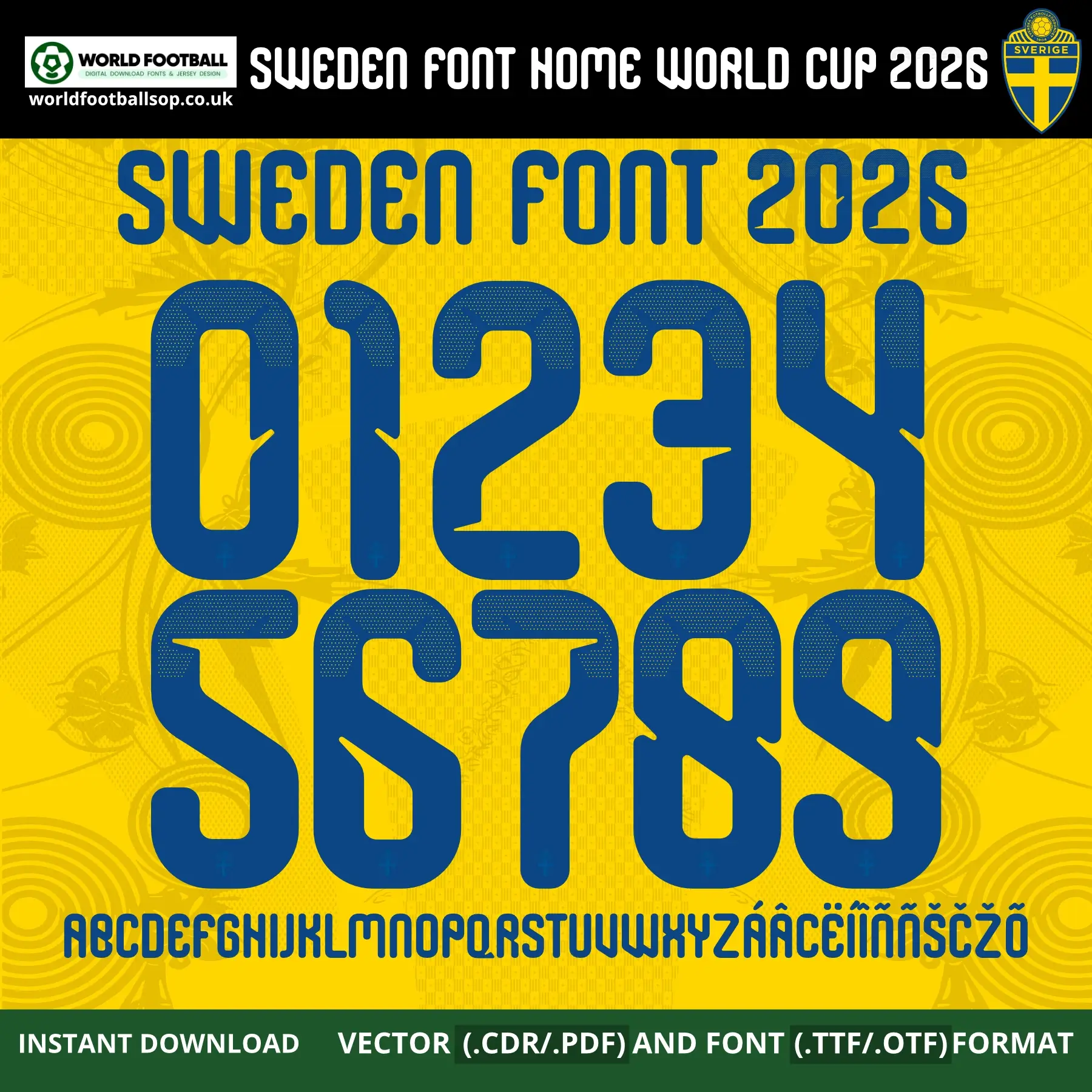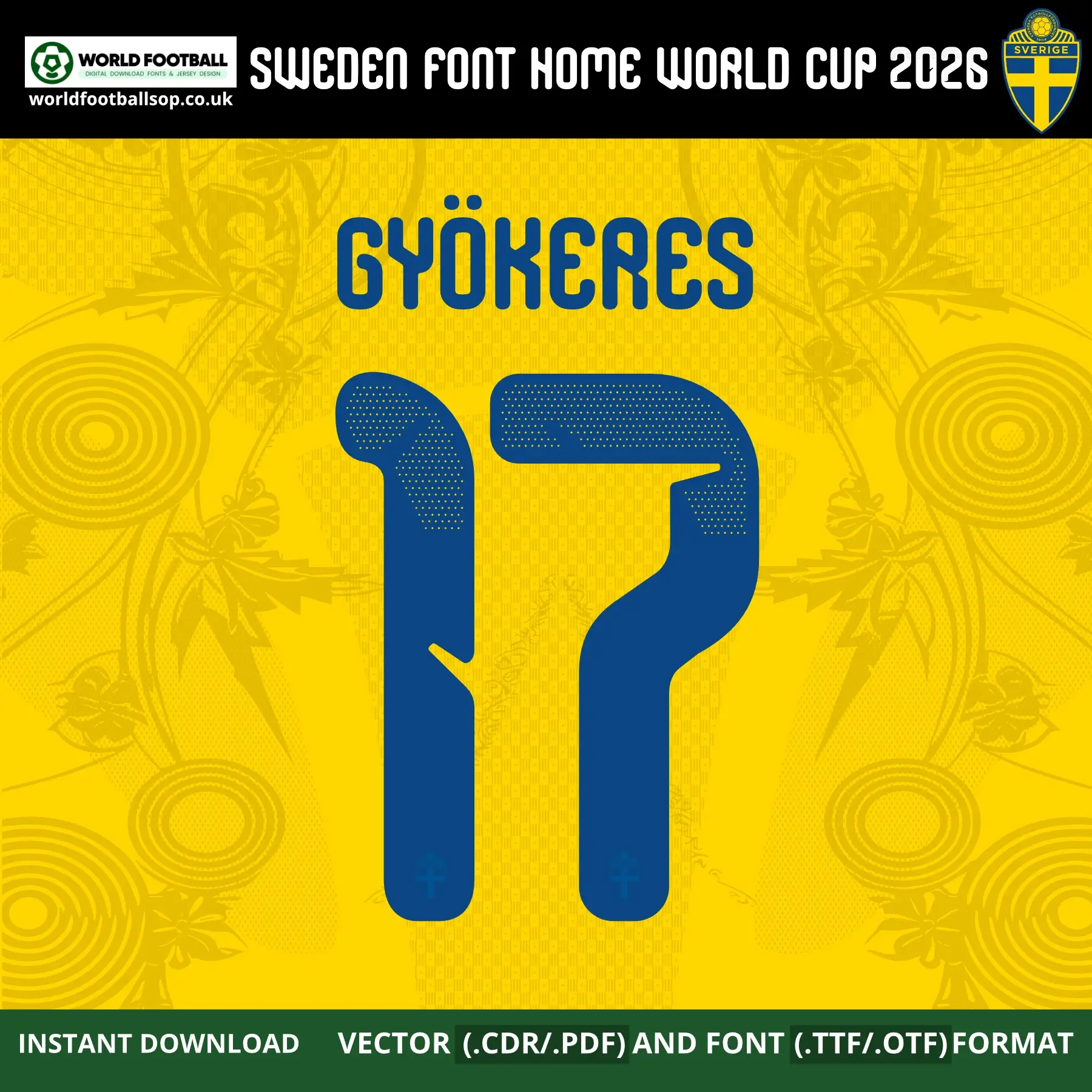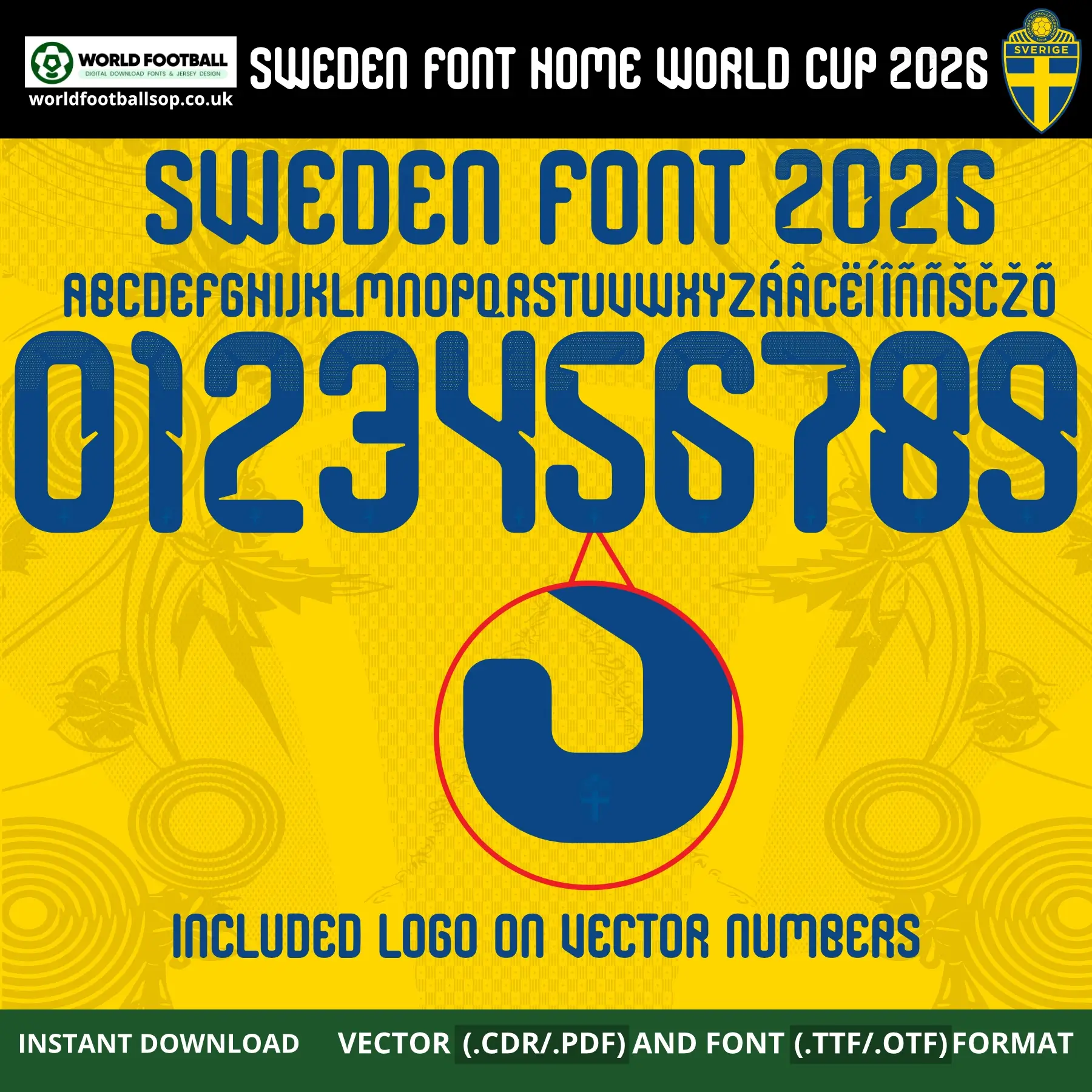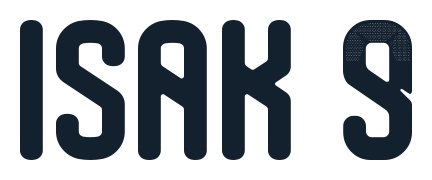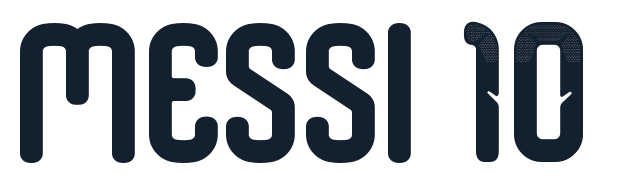
Sweden Home Font World Cup 2026 – Official‑style Jersey Typography
This Sweden Home Font World Cup 2026 kit recreates the bold, rounded chunky lettering used on Sweden’s iconic yellow home shirts for the 2026 FIFA World Cup in USA, Mexico and Canada. The wide, ultra-bold numbers and letters feature a distinctive royal blue fill with a subtle dotted/halftone texture running through each character, set against the vibrant golden yellow background with a circular Nordic-inspired floral pattern – giving the font a truly unique, modern identity that perfectly captures the spirit of the Blågult’s official home kit. It is perfect for fans, designers and printers who want authentic‑looking names and numbers on custom Sweden jerseys and football graphics.
SvFF crest logo embedded on every vector number and letter
Full uppercase alphabet A-Z and numbers 0-9 with extended Swedish and international accents (Á, Â, Ç, Ë, Í, Ï, Ñ, Š, Č, Ž, Õ…)
Preview layouts showing complete number set and example name/number combo – GYÖKERES 17
World Cup accuracy: Inspired by the exclusive Sweden Home Font World Cup 2026, not a generic typeface
High legibility: Ultra-bold rounded forms with halftone texture detail keep numbers clear on both TV and print designs while maintaining Sweden’s unique yellow and blue identity